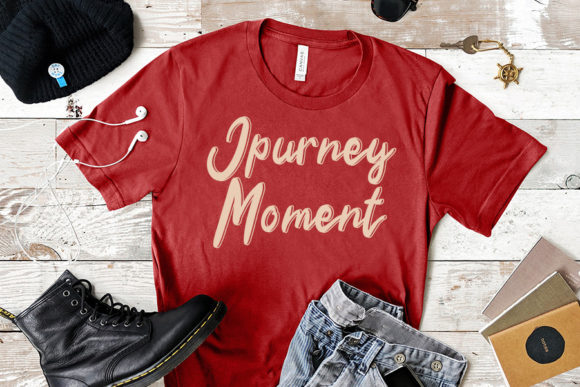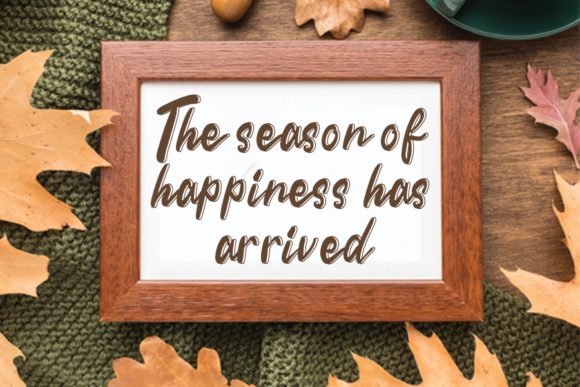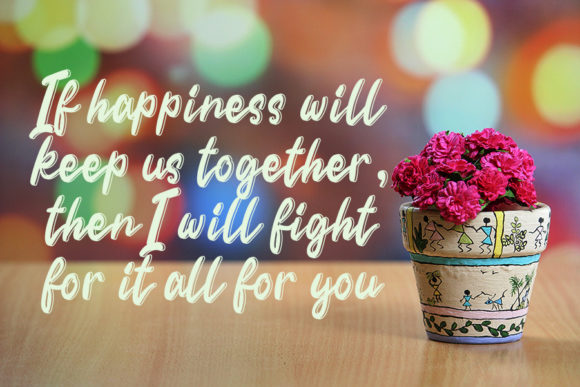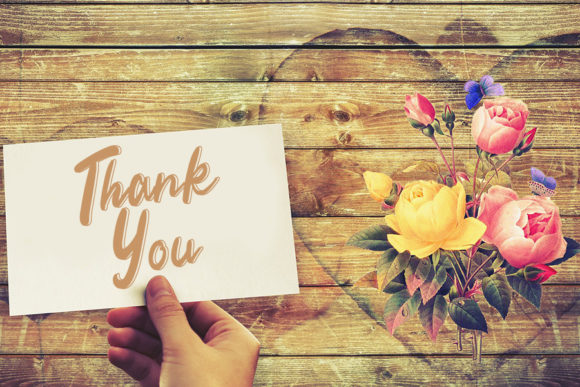
Introducing Christmas Journey Font: A Stylish and Unique Handwritten Delight
Are you on the hunt for a font that captures the essence of the holiday season? Look no further than Christmas Journey Font, a stylish and flowing handwritten font that’s perfect for adding a touch of festive flair to your designs. With its friendly and incredibly unique aesthetic, Christmas Journey is the ideal choice for a wide variety of projects, from holiday cards and invitations to branding and advertising materials.
A Festive and Versatile Font for Designers and Crafters
Christmas Journey Font is a versatile and highly adaptable font that’s suitable for a range of design applications. Whether you’re a professional designer or a crafty DIY enthusiast, this font is sure to become a go-to in your collection. Its flowing, handwritten style is reminiscent of traditional holiday scripts, yet its modern twist makes it perfect for contemporary designs.
Key Features of Christmas Journey Font
- Stylish and flowing handwritten design: Christmas Journey Font boasts a beautiful, cursive script that’s perfect for creating eye-catching headlines and titles.
- Unique and friendly aesthetic: This font’s distinctive style sets it apart from more traditional holiday fonts, making it ideal for designers looking to create something truly special.
- Highly versatile: Use Christmas Journey Font for holiday cards, invitations, branding, advertising, and more – the possibilities are endless!
- Easy to read and understand: Despite its ornate style, Christmas Journey Font remains clear and legible, making it perfect for body text and longer passages.
Ideas for Using Christmas Journey Font
So, how can you use Christmas Journey Font in your designs? Here are a few ideas to get you started:
- Holiday cards and invitations: Make your holiday greetings truly special with Christmas Journey Font’s elegant, cursive script.
- Branding and packaging: Add a touch of festive flair to your brand’s holiday packaging and marketing materials.
- Social media graphics: Create eye-catching social media posts and stories with Christmas Journey Font’s bold, attention-grabbing style.
- Crafting and DIY projects: Use Christmas Journey Font to add a personal touch to your holiday crafts, such as scrapbooking, card-making, and more.
Tips for Working with Christmas Journey Font
To get the most out of Christmas Journey Font, here are a few tips to keep in mind:
- Experiment with font sizes and colors: Play around with different font sizes and colors to find the perfect combination for your design.
- Pair with complementary fonts: Combine Christmas Journey Font with other fonts to create a unique and visually appealing typography scheme.
- Use for headlines and titles: Take advantage of Christmas Journey Font’s bold, attention-grabbing style by using it for headlines and titles.
Christmas Journey Font is a stylish and unique handwritten font that’s perfect for adding a touch of festive flair to your designs. With its friendly and incredibly versatile aesthetic, this font is sure to become a favorite among designers and crafters alike. Whether you’re creating holiday cards, branding materials, or social media graphics, Christmas Journey Font is the ideal choice for making your designs merry and bright.